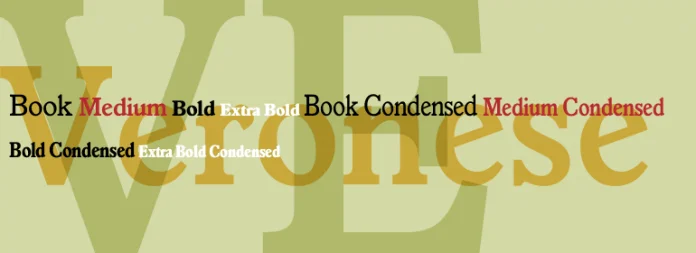
Veronese Font
Veronese Font is perfect for Italian restaurant branding, classical art exhibitions, Renaissance-themed designs, luxury wine labels, opera house programs, museum publications, historical documentaries, fine art gallery materials, cultural heritage projects, and sophisticated European marketing campaigns.
Veronese Font is exciting because it embodies the artistic grandeur and cultural sophistication of Renaissance Italy through elegant letterforms that evoke the timeless beauty of Venetian craftsmanship and classical artistry. This magnificent typeface combines historical authenticity with contemporary refinement, making it perfect for brands that want to communicate cultural depth, artistic excellence, and European elegance.
The Veronese Font family includes multiple weights inspired by classical Italian calligraphy, featuring elegant regular and italic versions with ornate decorative elements. The font showcases Renaissance-era styling, sophisticated ligatures, and period-appropriate character details that reflect the artistic mastery of historical Italian typography traditions.
The Italian sophistication of Veronese Font makes it an exceptional choice for fine arts organizations, luxury goods manufacturers, and cultural institutions that need to communicate refinement and historical credibility. The font's classical character helps establish immediate associations with Italian artistry, cultural heritage, and European sophistication that appeals to discerning audiences appreciating authentic cultural experiences.
Museums, fine dining establishments, and luxury brands consistently choose Veronese Font for its ability to convey classical elegance and Italian artistic heritage through typography. The font excels in applications where establishing cultural authority and sophisticated taste is essential to brand positioning, making it particularly effective for art galleries, cultural events, and premium lifestyle products.
This font's extensive character set includes classically-inspired letterforms, elegant numerals, period punctuation marks, and specialized symbols that support authentic Renaissance typography composition. The careful preservation of historical design elements ensures genuine Italian character while meeting contemporary technical standards for Veronese Font Free Download across all cultural and luxury design applications.